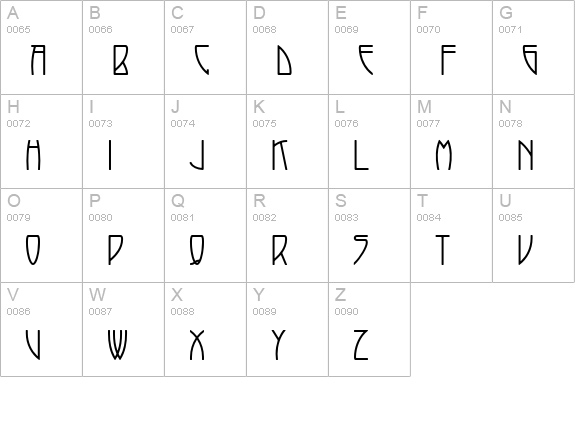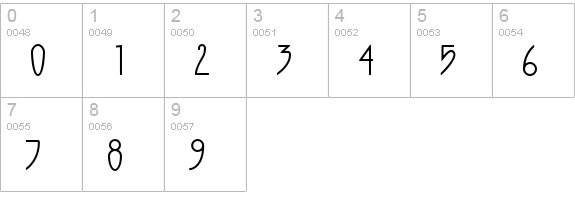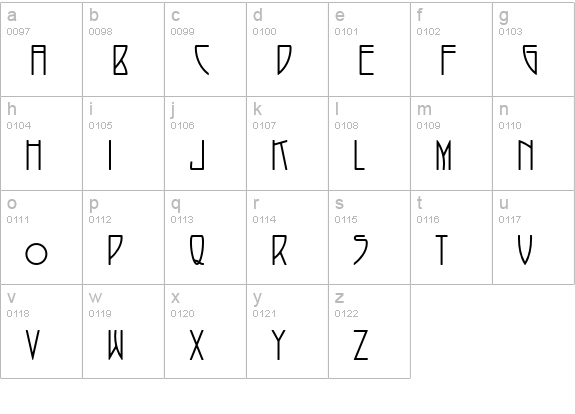
P22ArtsAndCrafts-Tall Font Details
Introducing P22ArtsAndCrafts-Tall, a captivating and versatile font that effortlessly captures the essence of artistic expression. With its tall and slender design, this font exudes elegance and sophistication, making it perfect for a wide range of creative projects. P22ArtsAndCrafts-Tall boasts a remarkable balance between refined craftsmanship and a touch of whimsical charm. Its delicate curves and intricate letterforms draw inspiration from the Arts and Crafts movement, creating a unique blend of tradition and innovation. Whether you're designing invitations, logos, or signage, this font will add a touch of timeless beauty to your creations. One of the best aspects of P22ArtsAndCrafts-Tall is that it is freely available to download at FontsMarket.com. This means that you can unleash your creativity without any limitations, giving you the freedom to explore and experiment with this stunning font. Whether you're a professional designer or a passionate DIY enthusiast, this font will be an invaluable addition to your typographic toolkit. With its extensive character set, P22ArtsAndCrafts-Tall offers support for multiple languages, ensuring that your message can be expressed with clarity and elegance no matter where it is read. Its legibility and versatility make it suitable for a wide range of mediums, including print, digital, and even handcrafted projects. Unleash your creativity and elevate your designs with P22ArtsAndCrafts-Tall. Download this captivating font for free at FontsMarket.com and embark on a journey of artistic expression like never before. Let your imagination run wild as you embrace the beauty and charm of this exceptional typeface.